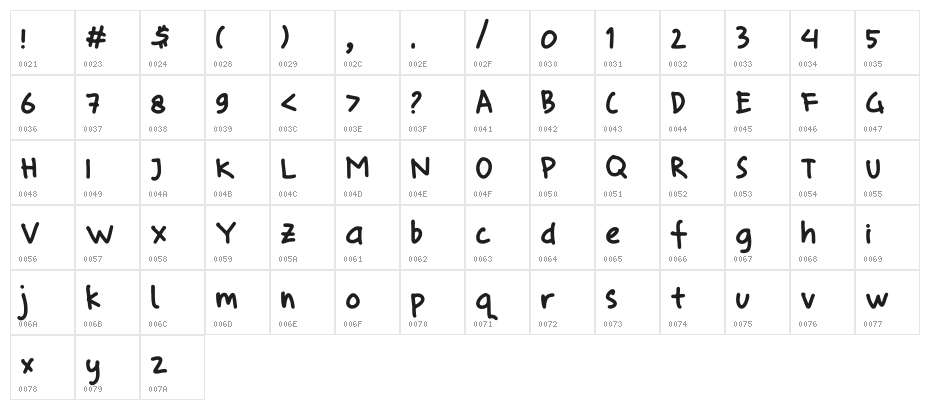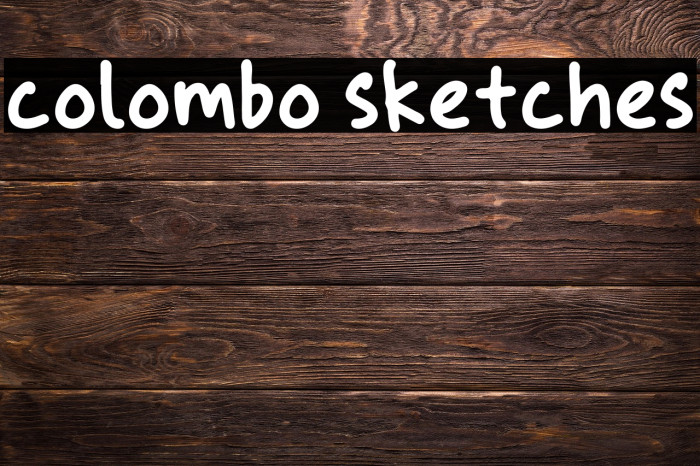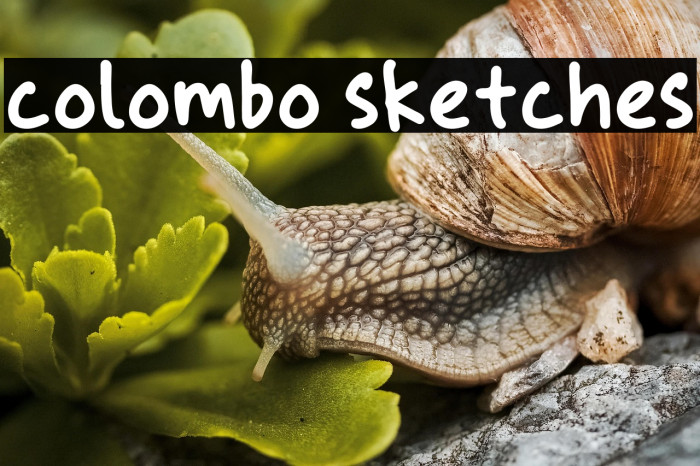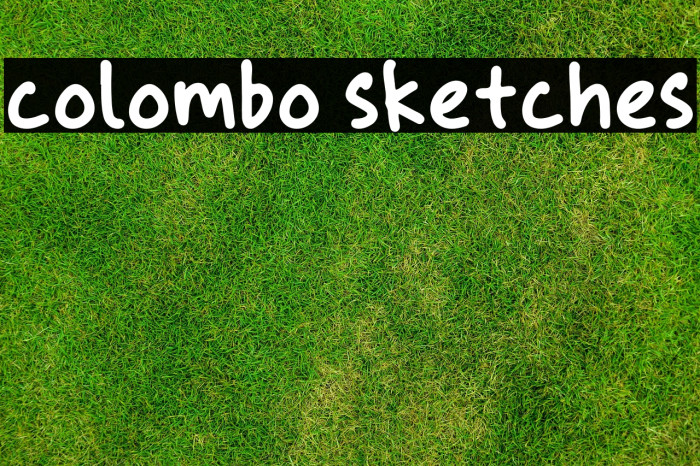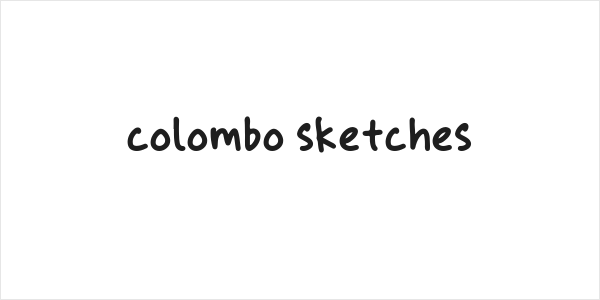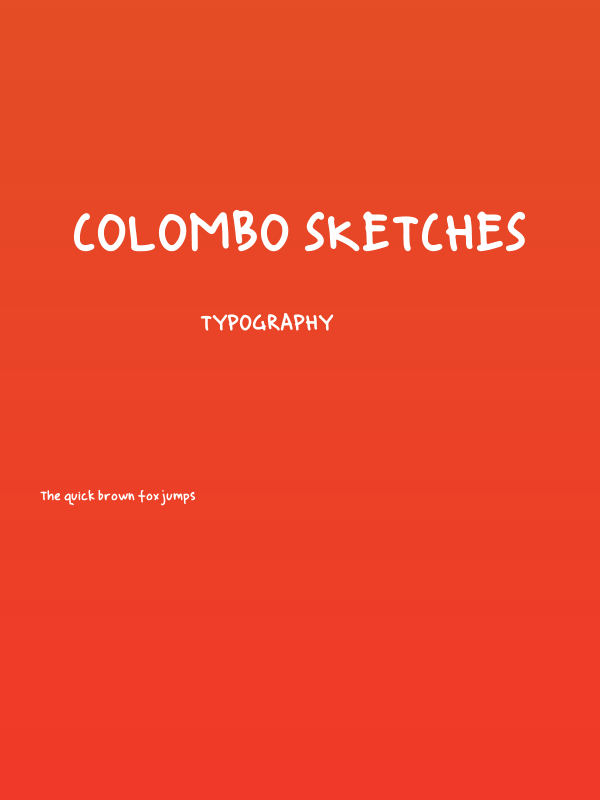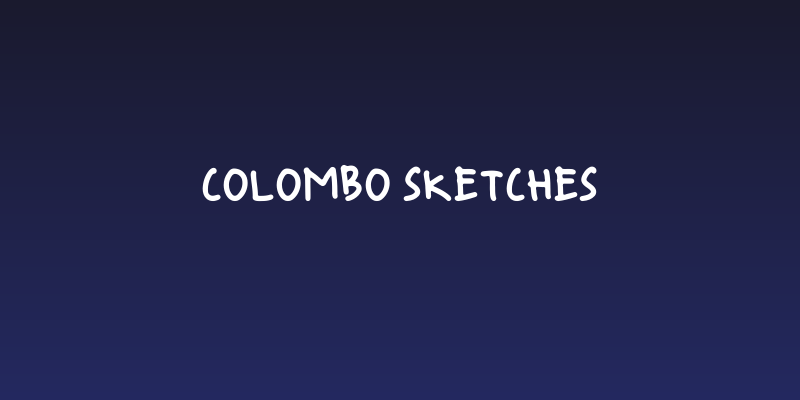
colombo sketches Font
colombo sketches Description
This playful and informal font exudes a hand-drawn, sketch-like quality that brings a sense of whimsy and creativity to any project. The characters are bold and rounded, with a slightly uneven baseline that adds to the casual, friendly feel. The strokes are consistent in weight, giving the font a uniform appearance despite its informal style. The font includes a full set of uppercase and lowercase letters, numbers, and a selection of special characters, making it versatile for various uses. Its unique style is perfect for projects that require a personal touch or a fun, approachable aesthetic.
| Proposed Projects | Ideal for children's books, greeting cards, casual branding, and creative posters. |